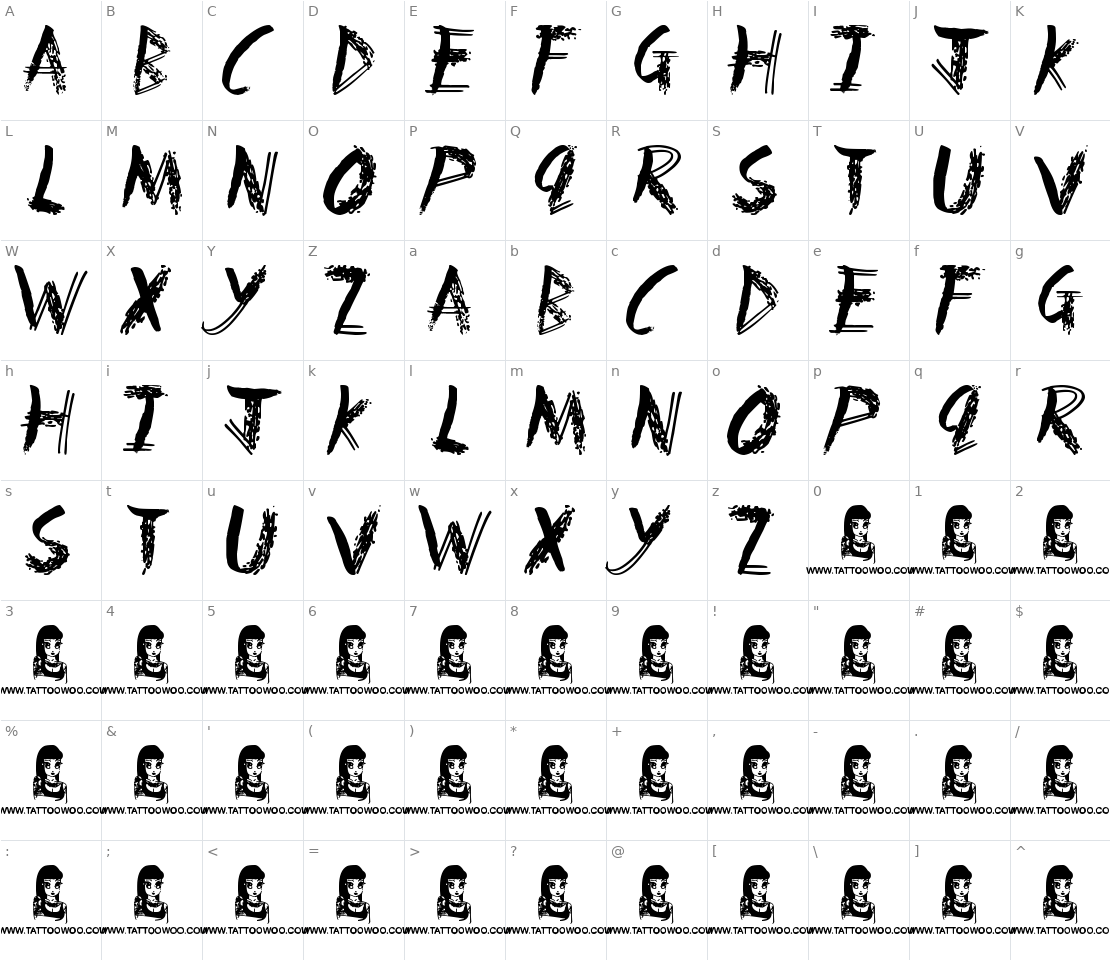
Fun House
Fun House is a bold, gritty display face from Jonathan S. Harris with heavily distressed letterforms that look like they've been scratched into a wall or left to decay. The rough, textured edges give it a menacing quality that sits comfortably in horror, grunge, and punk contexts. Best kept to headlines and short text where the raw, beat-up character can do the heavy lifting.